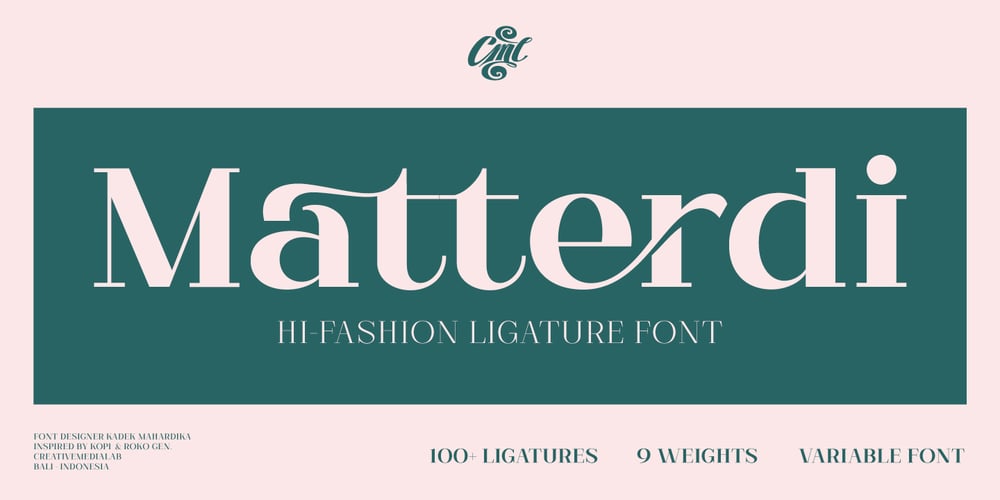
Matterdi Font Family was designed by Kadek Mahardika and published by Creativemedialab. Matterdi contains 10 styles and family package options. Introducing Matterdi, an elegant High-Fashion serif family with tons of unique and fashionable ligatures.This versatile serif family contains 100+ unique, elegant ligatures and alternates. 9 weights available from Thin to Black which gives you many possibilities to layout your next projects. Perfect for word-marks, monograms, logos, branding projects, or to use as web font.Try Matterdi Bold for display titles or Matterdi Thin for a fashionable and elegant look. It is also perfect to pair with a hand-drawn script!How to access alternate? Adobe Photoshop go to Window – glyphs Adobe Illustrator go to Type – glyphs